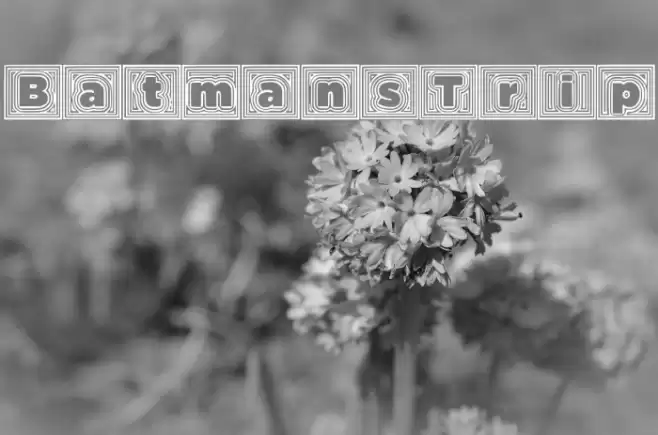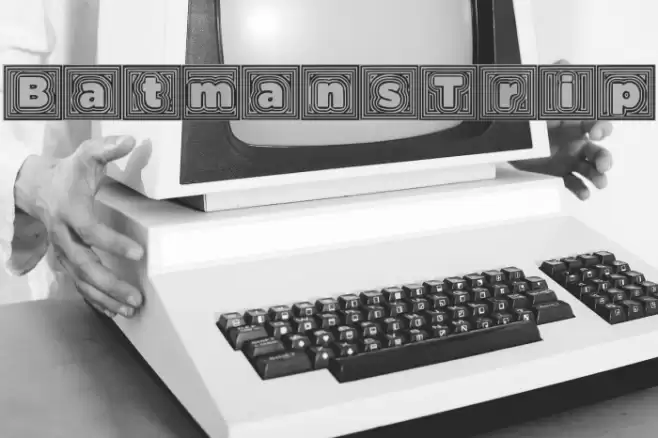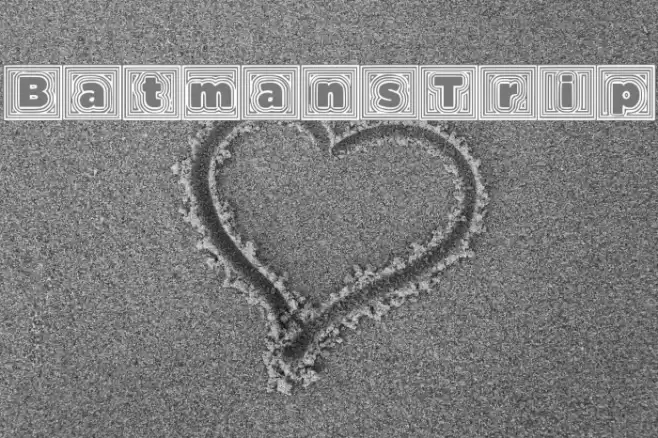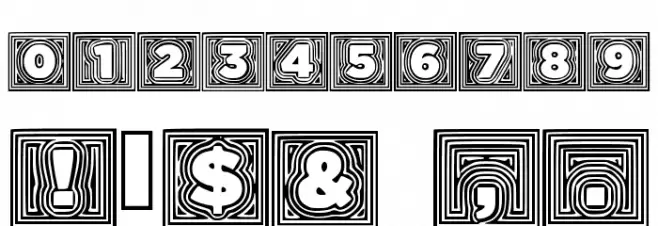
BatmansTrip Font
BatmansTrip Description
This font features a unique, decorative style with a bold, outlined design. Each character is encased in a square border, creating a striking visual effect. The letters and numbers are filled with intricate, maze-like patterns, giving them a complex and artistic appearance. The font is highly stylized, with a strong emphasis on geometric shapes and symmetry. The overall look is modern and eye-catching, making it suitable for creative and bold design projects. The characters are evenly spaced within their borders, maintaining a consistent and balanced look across the entire set.
A bold, decorative font with intricate, maze-like patterns and geometric borders from Fancy fonts.
- Proposed Projects: Ideal for posters, album covers, branding, and any project requiring a bold, artistic touch.
- Contrast: High